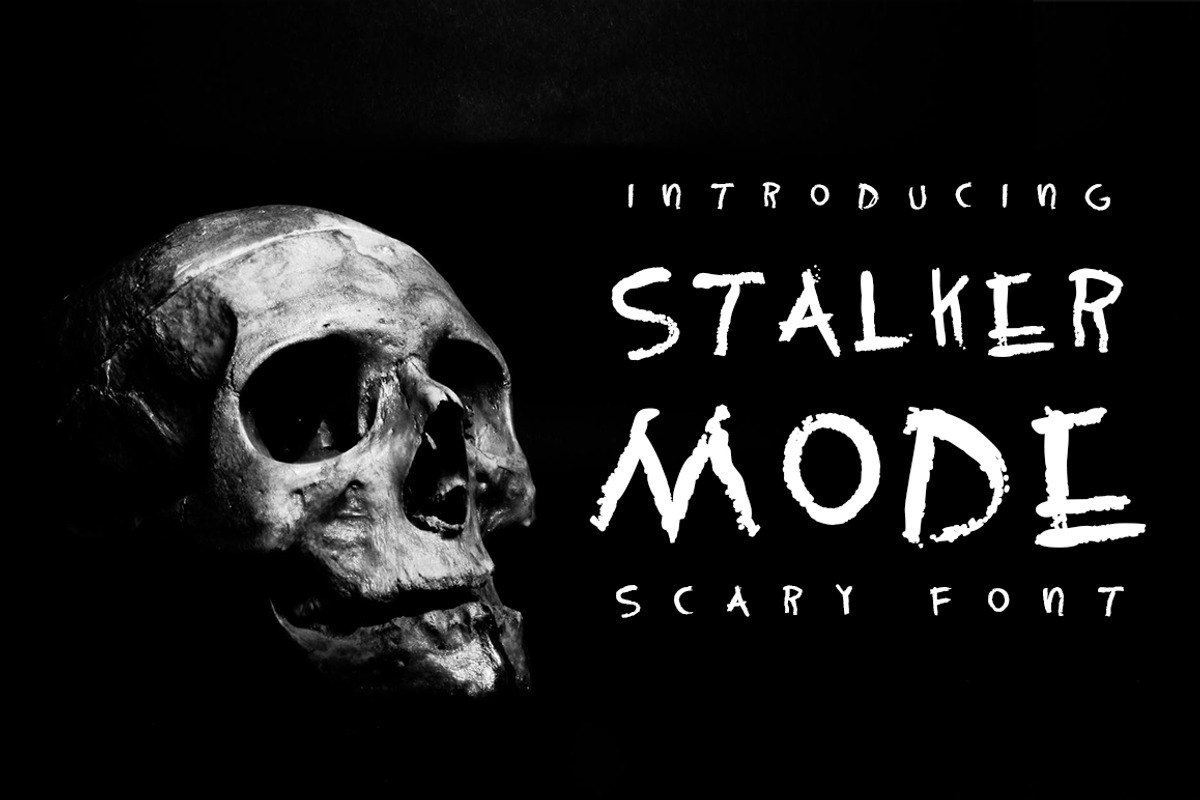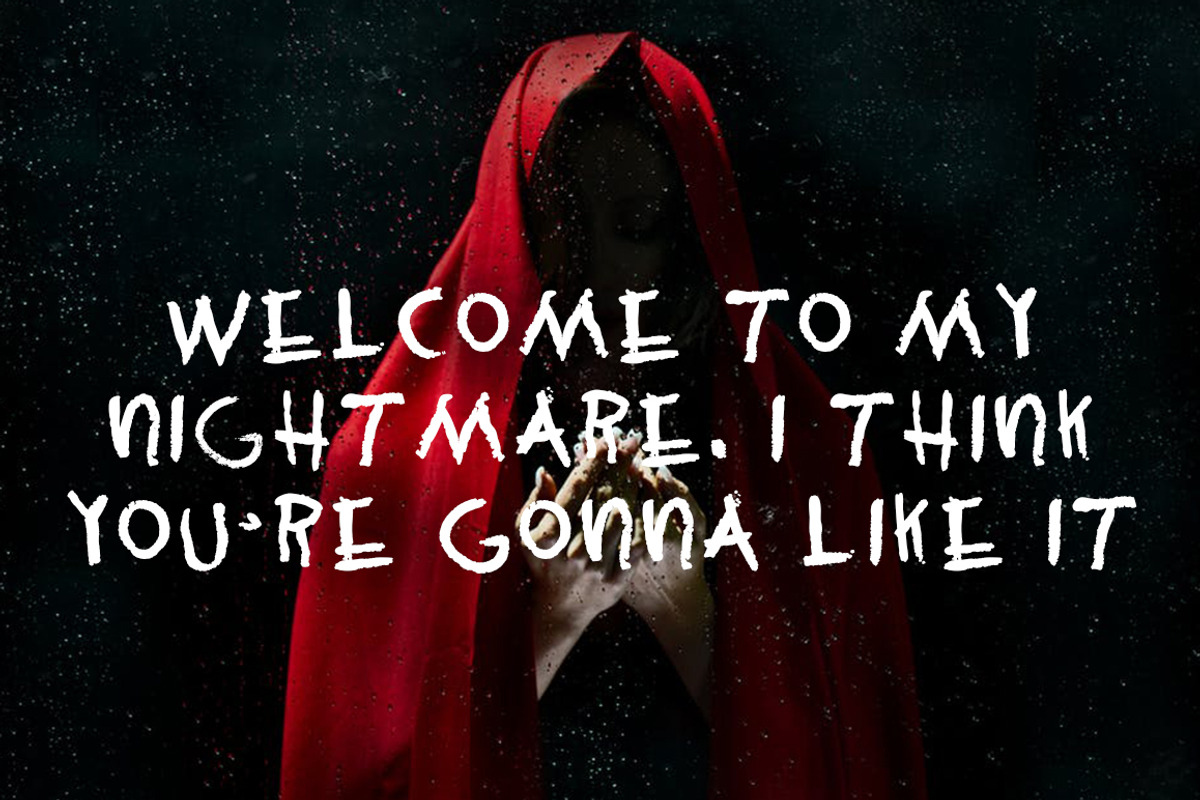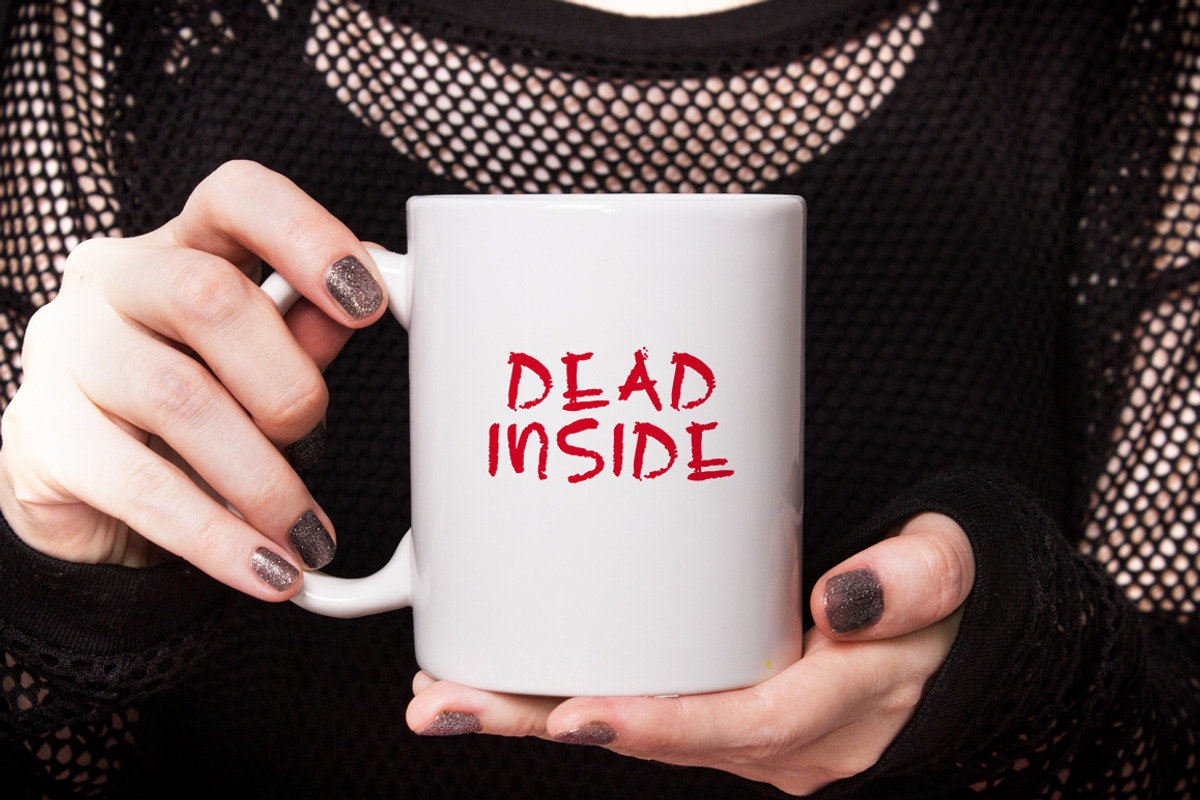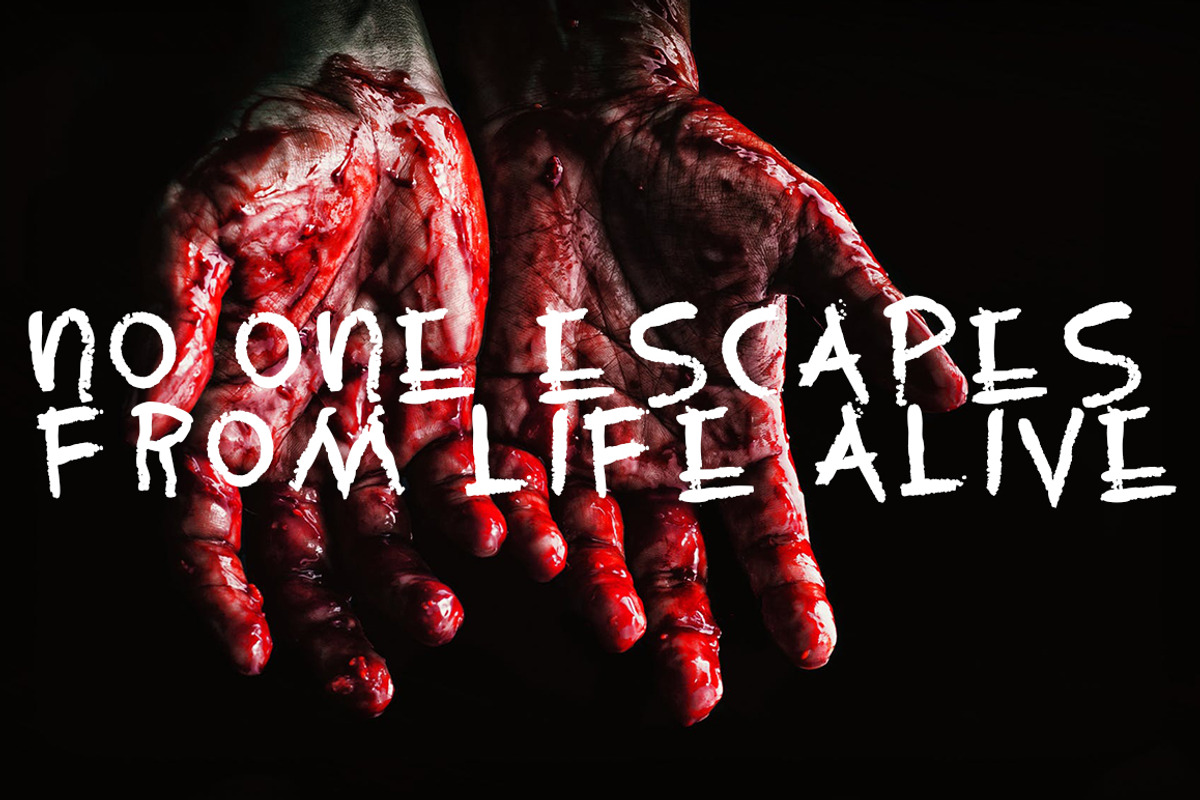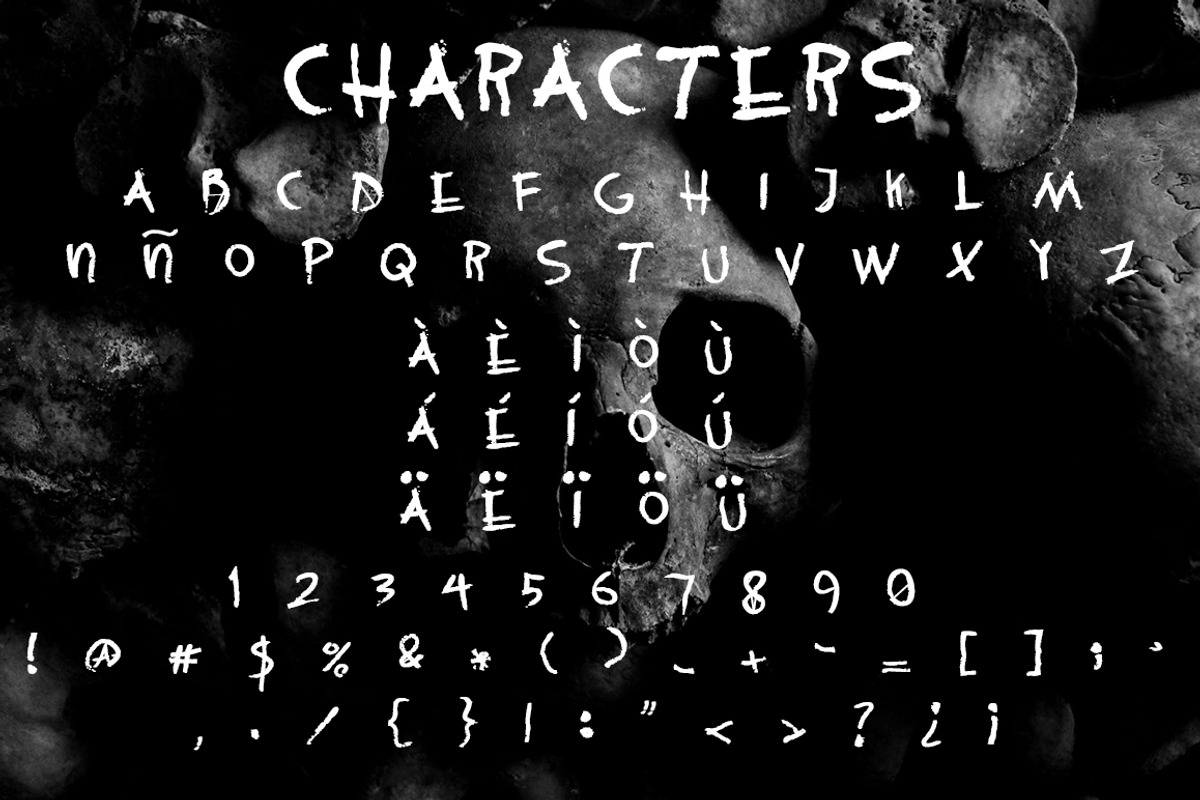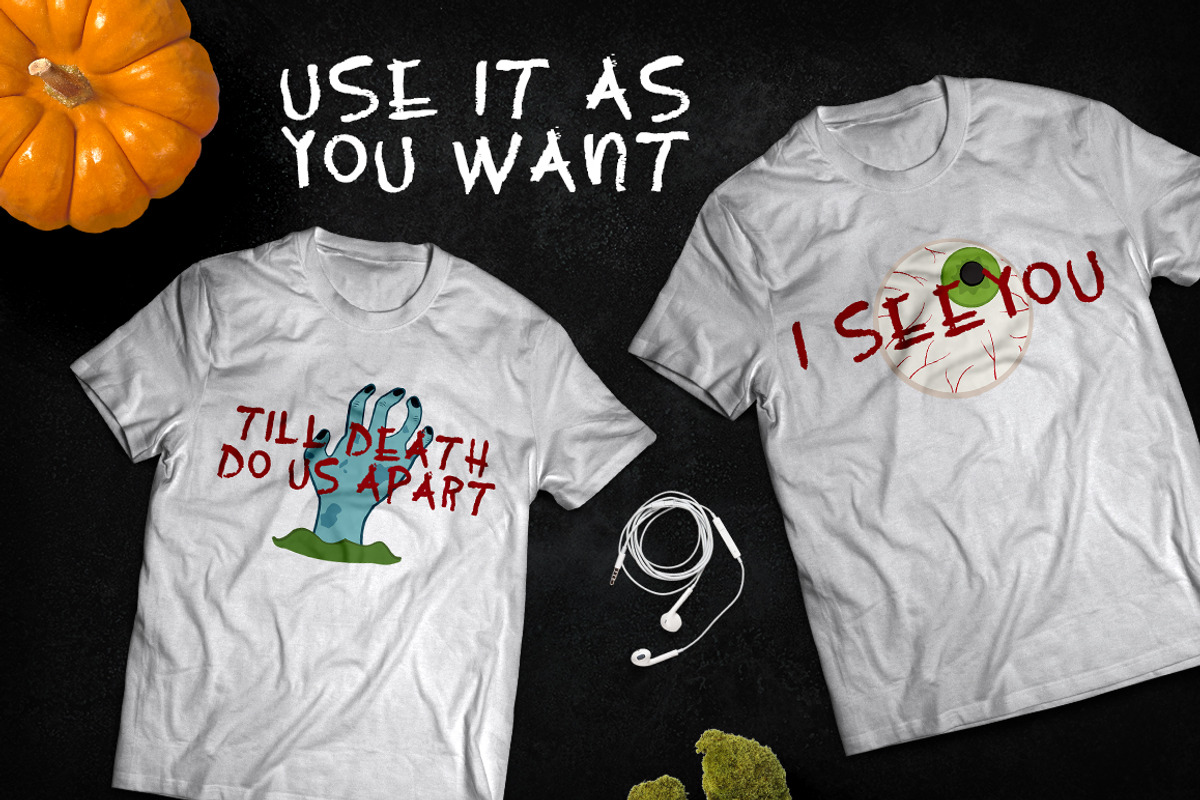
Stalker mode - Scary font
Hey guys! I've been away for a while now, and I thought the best time to come back IT'S HALLOWEEN WITCHES . So i brought you the STALKER MODE FONT so you can get spook your everyone with this awesome font. It's perfect for those scary party invitations, shirt (or any merch) designs, signs, and more! sky's the limit.
-This is a multilingual font so everyone can use it -Give your designs that scary touch you want -Use it as you want!